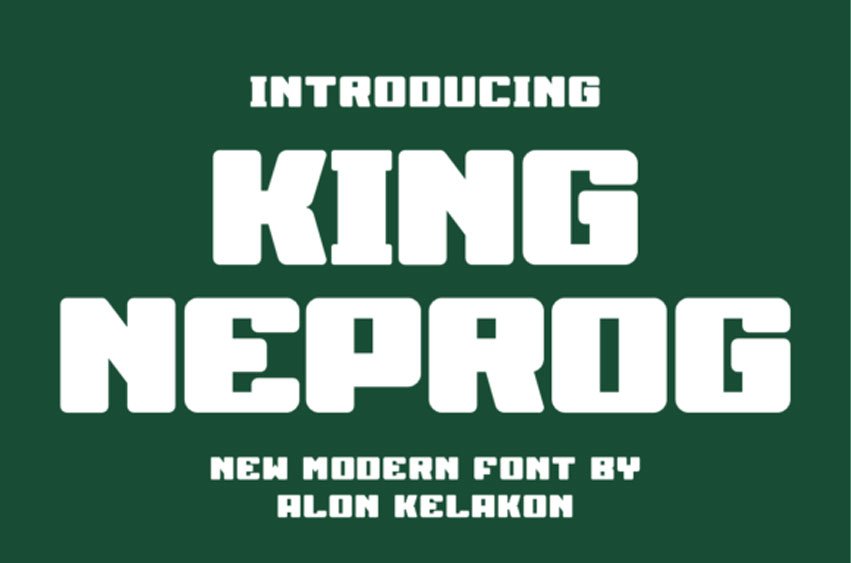
King Neprog Font
King Neprog Font is unique sans serif font.
Ready to use for your design like labeling, clothing, movie scenes, poster, movie title, gigs, album covers, logos, and much more.